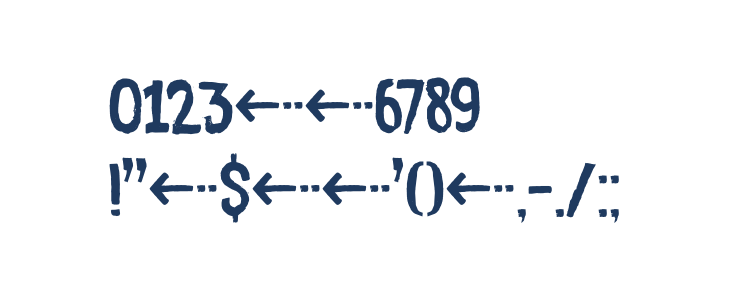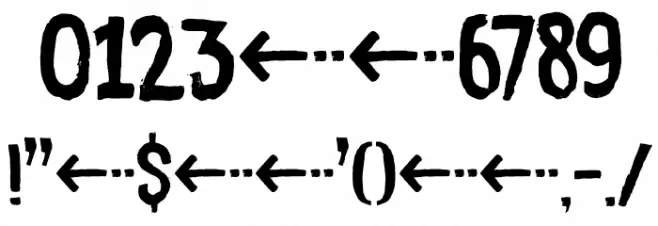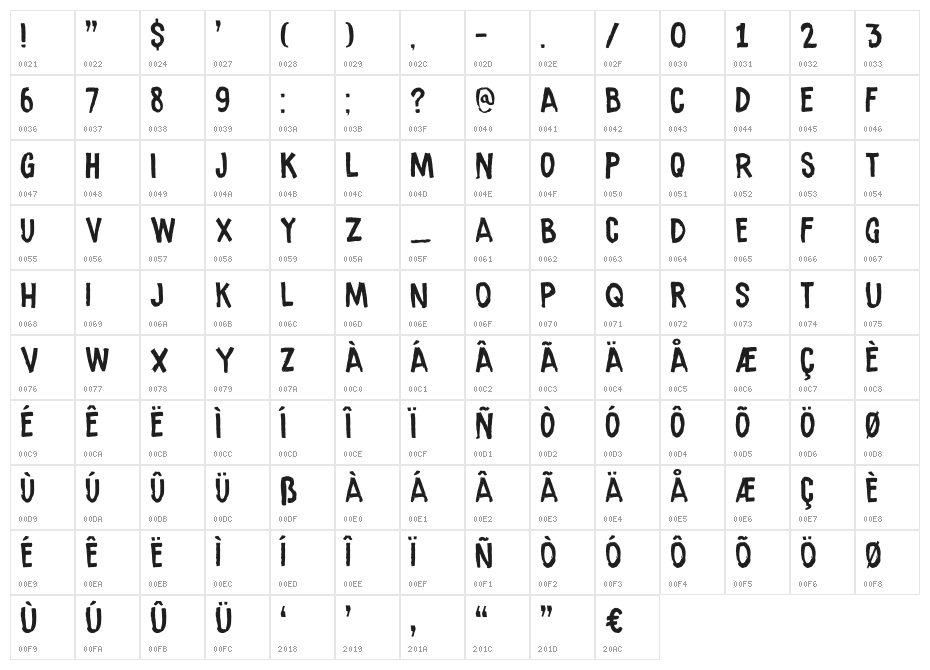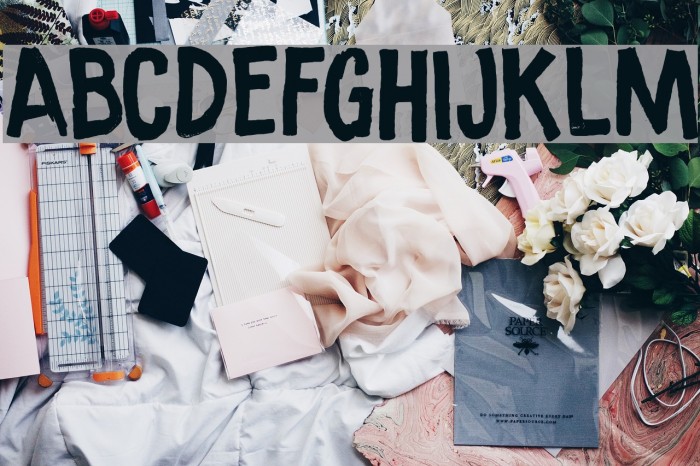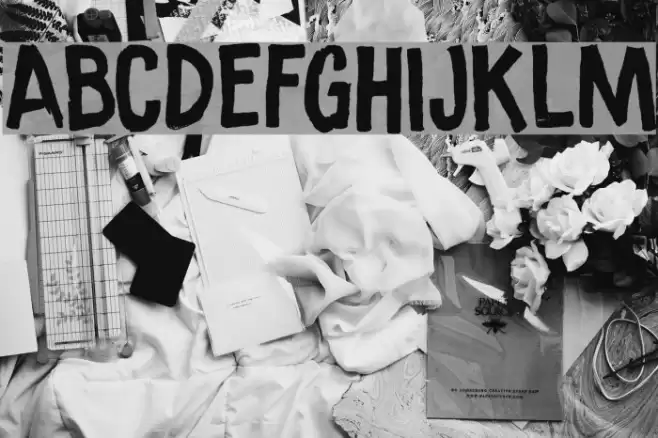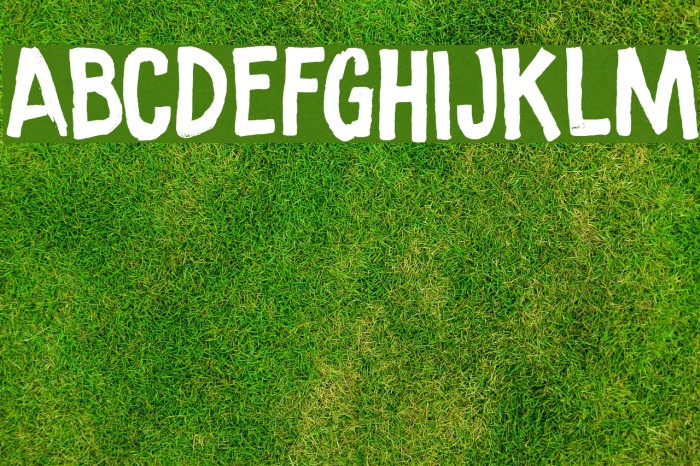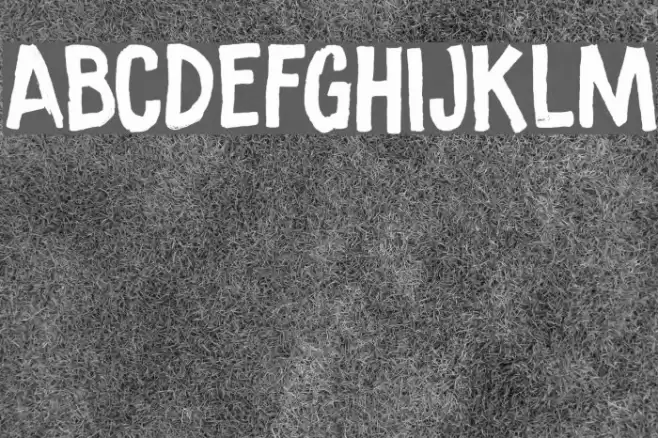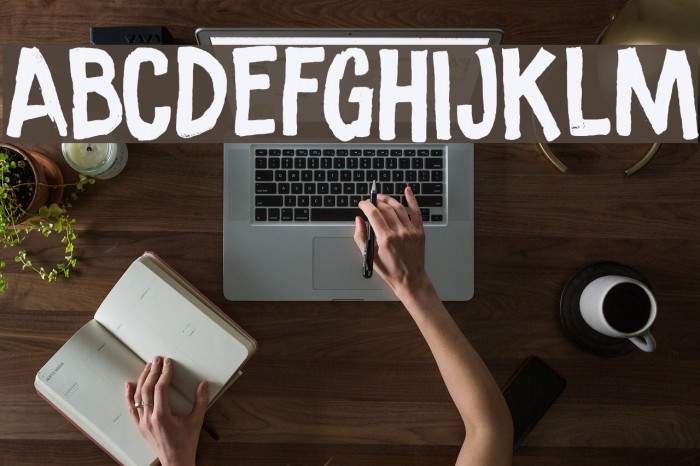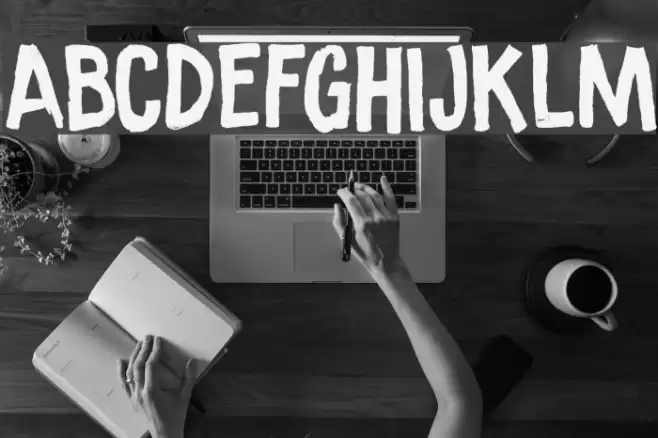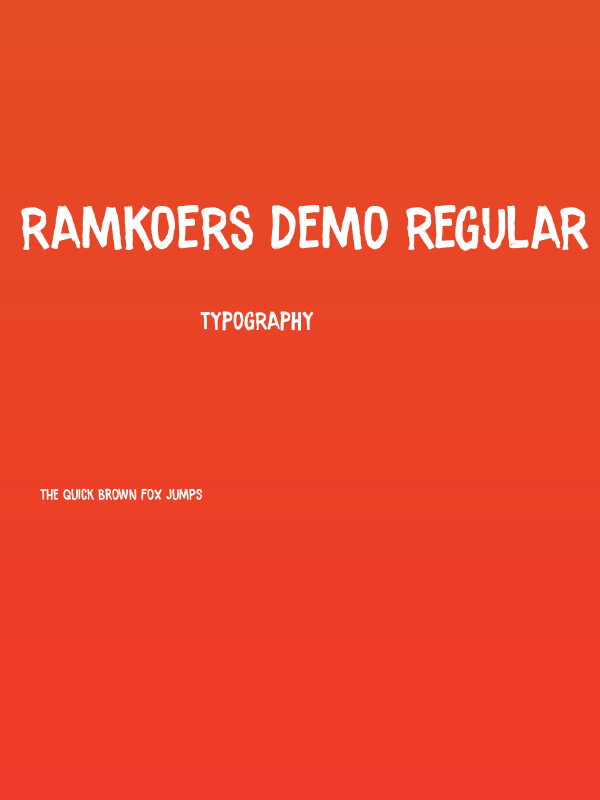
Ramkoers DEMO Regular Font
Ramkoers DEMO Regular Description
This font exhibits a bold, hand-drawn style with a rugged and slightly distressed appearance. The characters are uppercase and have a playful, energetic feel, reminiscent of brush strokes or marker writing. The strokes are uneven, adding to the casual and informal aesthetic. The numbers and special characters maintain the same bold and dynamic style, making them suitable for attention-grabbing designs. The overall look is both artistic and approachable, ideal for projects that require a personal touch.
| Proposed Projects | Ideal for posters, flyers, branding, and any design that requires a bold, artistic touch. |